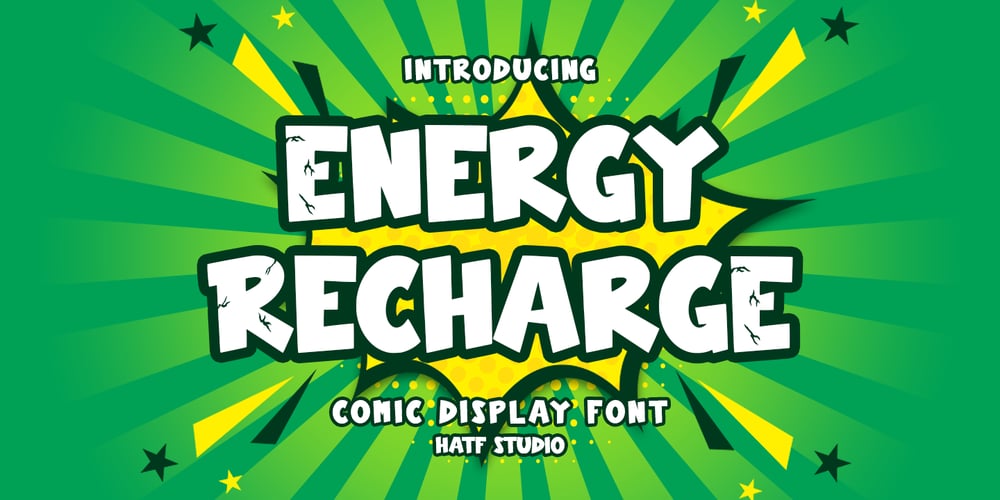
Energy Recharge Font Family was designed by Asep Rendi and published by Hatftype. Energy Recharge contains 1 styles and family package options. Is a comic display font with distinctive handwritten characters perfect for branding projects, logos, wedding designs, media posts, advertisements, product packaging, product designs, labels, photography, watermarks, invitations, stationery, and any project who need handwritten dishes.1. Uppercase & Lowercase2. Multilingual support3. Number4. Symbol5. Punctuation6. Support in Mac and Windows OS -Support in design application (photoshop, illustrator, and more)I really hope you enjoy it.